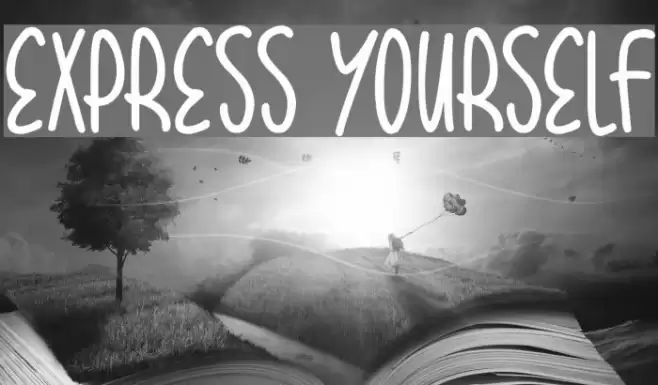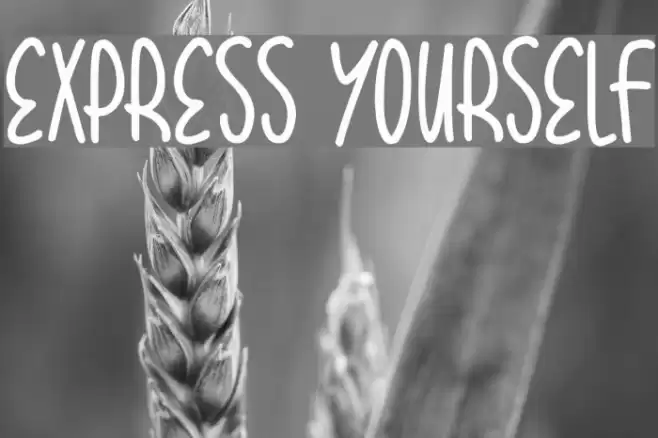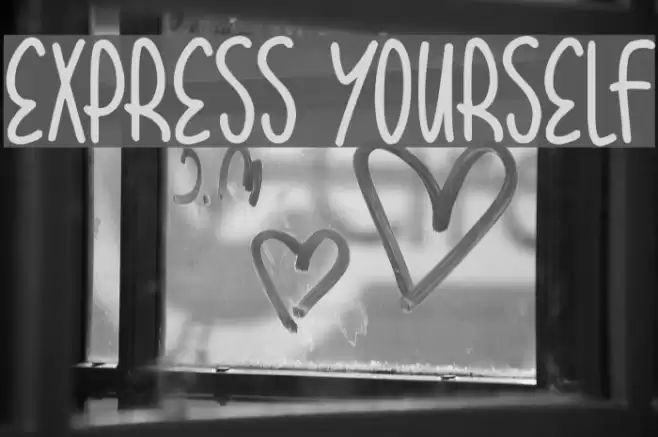
Express Yourself Font
Express Yourself Description
This font features a playful and energetic handwritten style, characterized by tall, narrow letters with a consistent stroke width. The uppercase and lowercase letters maintain a cohesive look, with rounded edges and a slightly informal appearance. Numbers and special characters follow the same design principles, ensuring a harmonious overall look. The font's casual and friendly vibe makes it suitable for projects that require a personal touch. Its legibility and unique style make it stand out without being overwhelming.
A playful, handwritten font with tall, narrow letters and consistent stroke width from Uncategorized fonts.
- Proposed Projects: Ideal for greeting cards, children's books, casual branding, and social media graphics.
- Overall Style: Casual
- Use Case: Headlines, Informal text, Branding